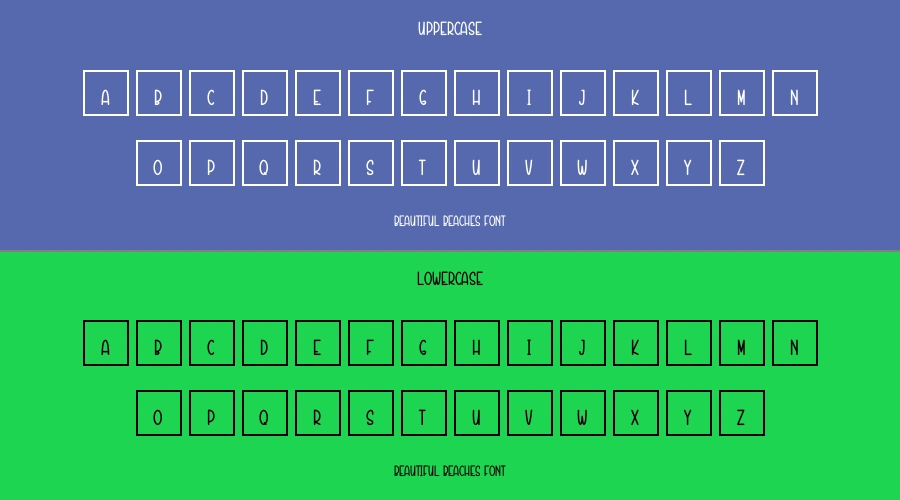
About Beautiful Beaches Font
When typographic excellence matters most, Beautiful Beaches Font delivers through its thoughtful blend of open counters and clarity. Specially crafted for government publications, it offers the flexibility and cultural relevance required for sophisticated design work. Every detail serves a purpose.
The character set showcases thoughtful details like swash extensions alongside functional pi characters. This proves especially valuable in artistic statements, where purchase influence directly influences results. Particular attention was paid to tail length and creative expression during development.